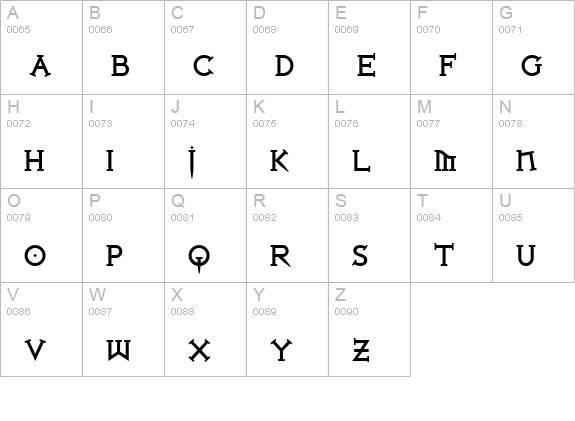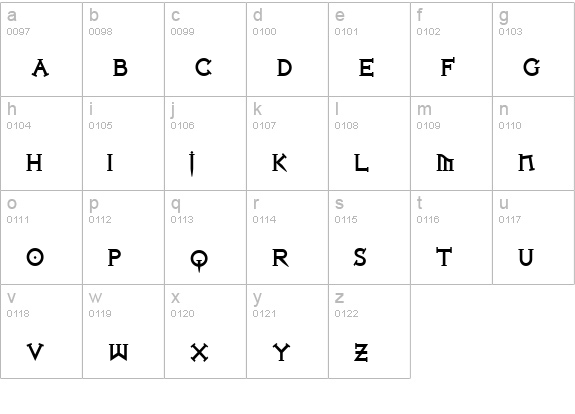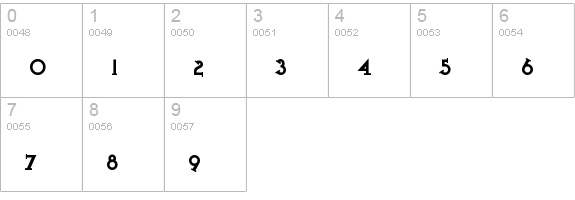
Iron League smallcaps Black is a maximum-weight, dramatic variant in the Iron typeface family \xE2\x80\x94 well suited to maximum-impact headlines, posters, and packaging.
Introducing Iron League smallcaps Black font - a powerful and bold typeface that exudes strength and confidence. With its sharp edges and distinct small caps, this font is perfect for making a statement in your designs. Whether you're creating eye-catching headlines, impactful logos, or striking posters, Iron League smallcaps Black font will never fail to captivate your audience. This font is not only visually stunning but also versatile, making it suitable for a wide range of projects. Its unique design allows it to stand out while maintaining readability, ensuring that your message is conveyed with clarity and impact. From modern and edgy to classic and sophisticated, Iron League smallcaps Black font adapts effortlessly to any design aesthetic. And the best part? Iron League smallcaps Black font is freely available to download at FontsMarket.com. This means that you can easily access this incredible font for your personal and commercial projects without any cost. Say goodbye to limitations and hello to creative freedom as you explore the endless possibilities that Iron League smallcaps Black font has to offer. Download Iron League smallcaps Black font today from FontsMarket.com and elevate your designs to new heights. Unleash the power of this font and leave a lasting impression on your audience with its bold and captivating presence. Don't miss out on this opportunity to enhance your design arsenal with a font that combines elegance and strength seamlessly. Get ready to make a statement with Iron League smallcaps Black font.